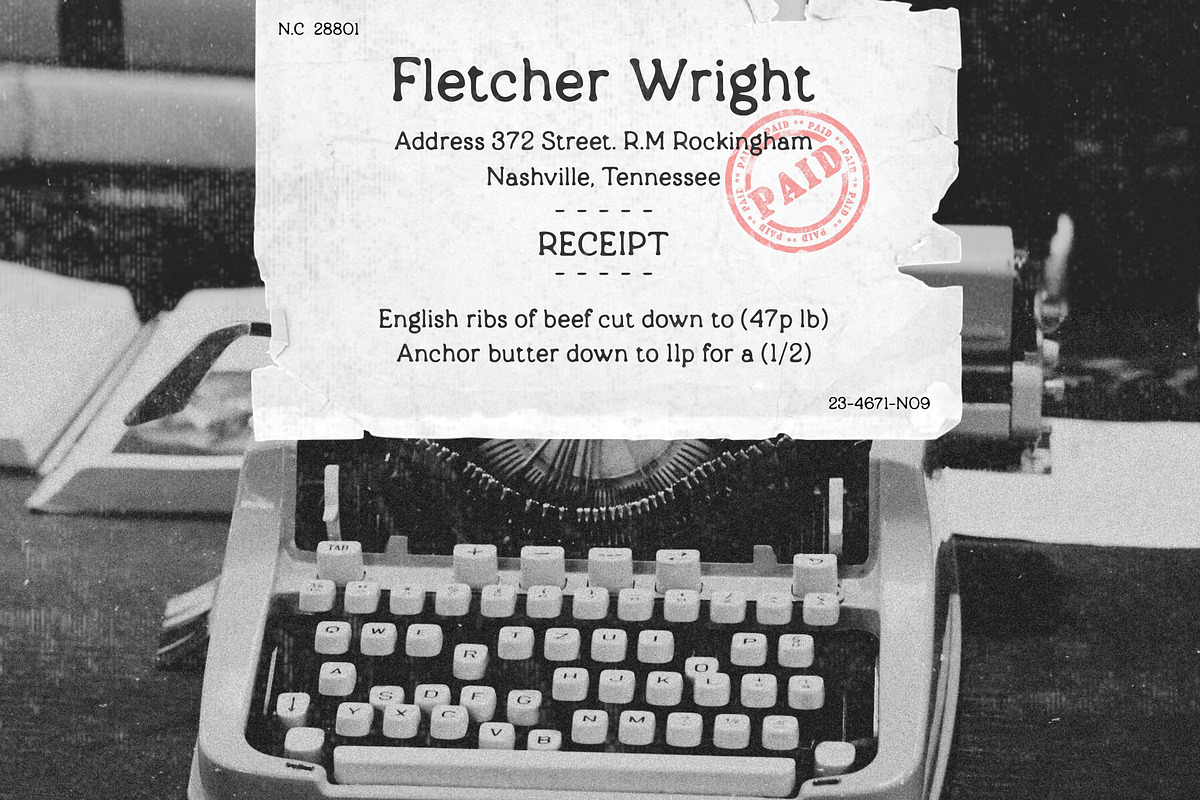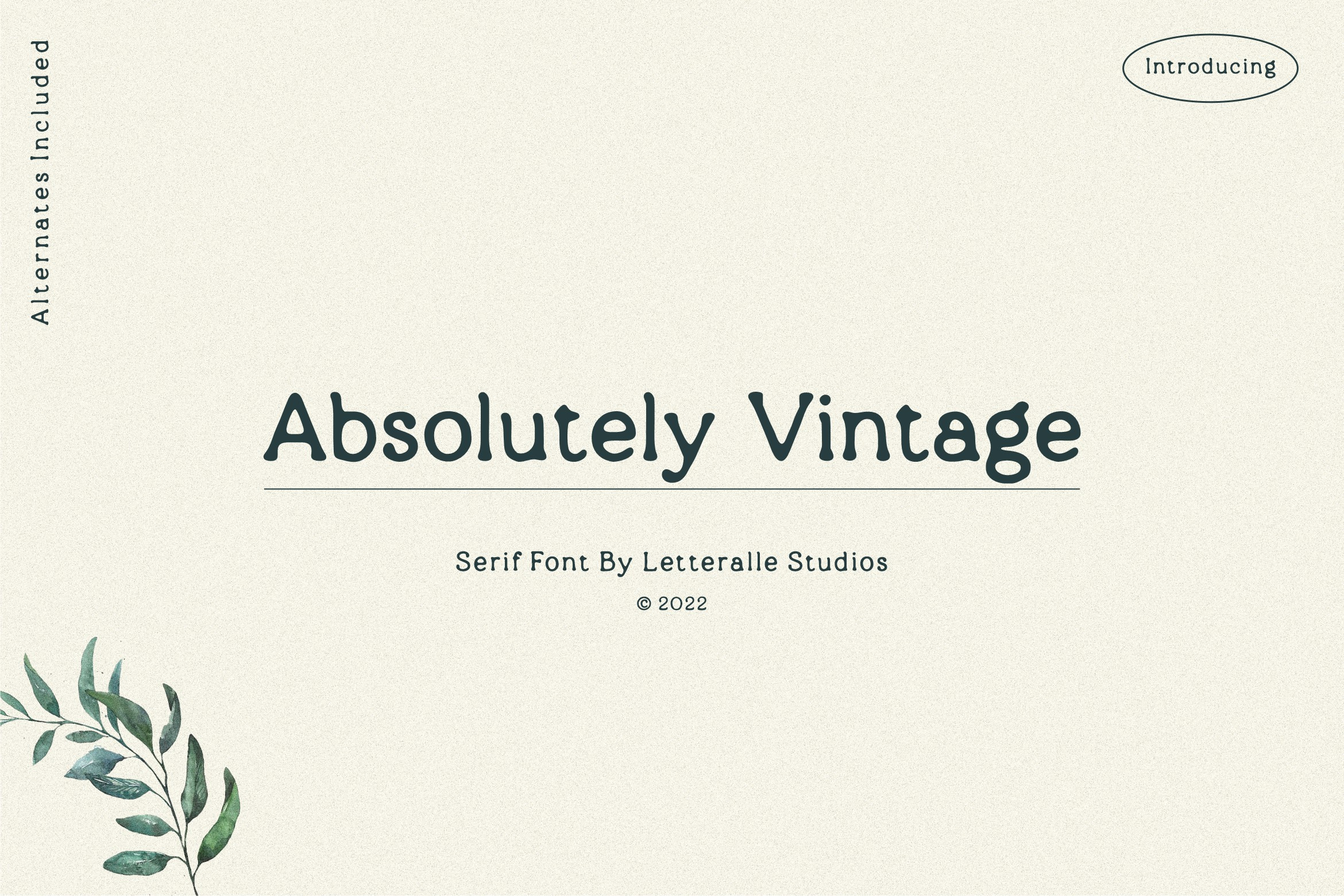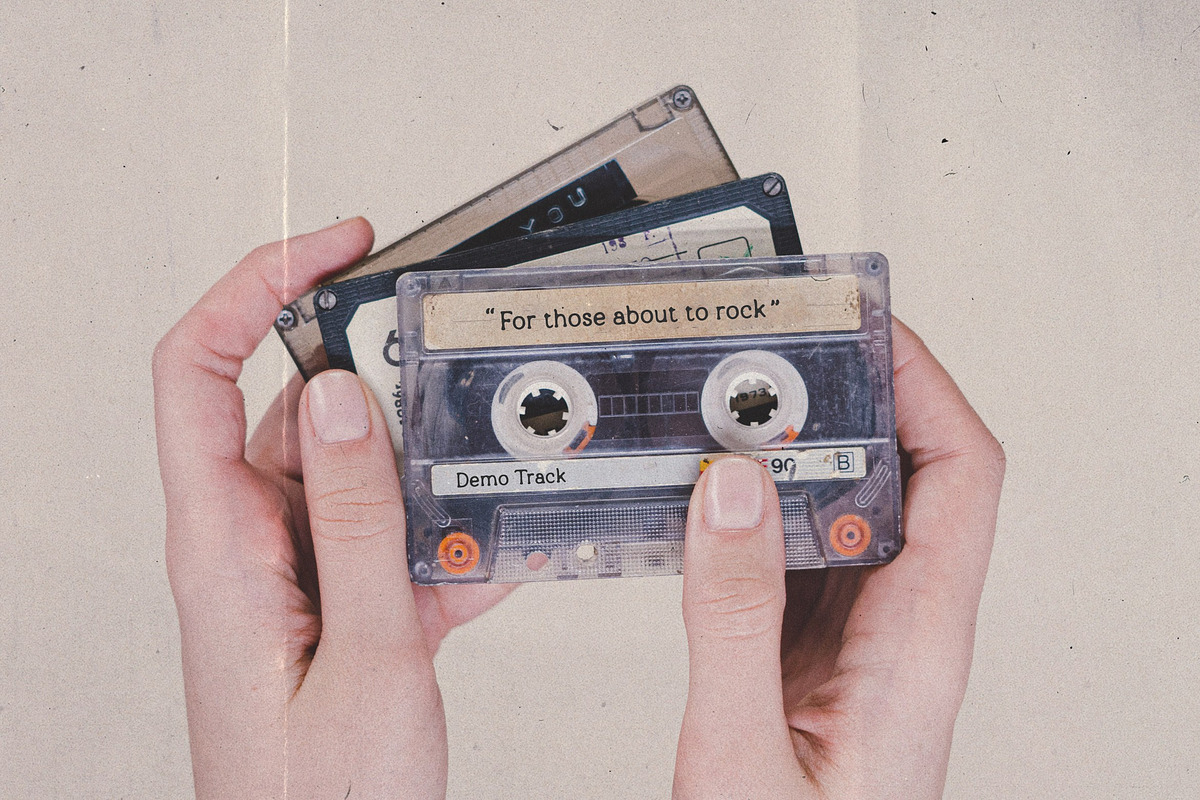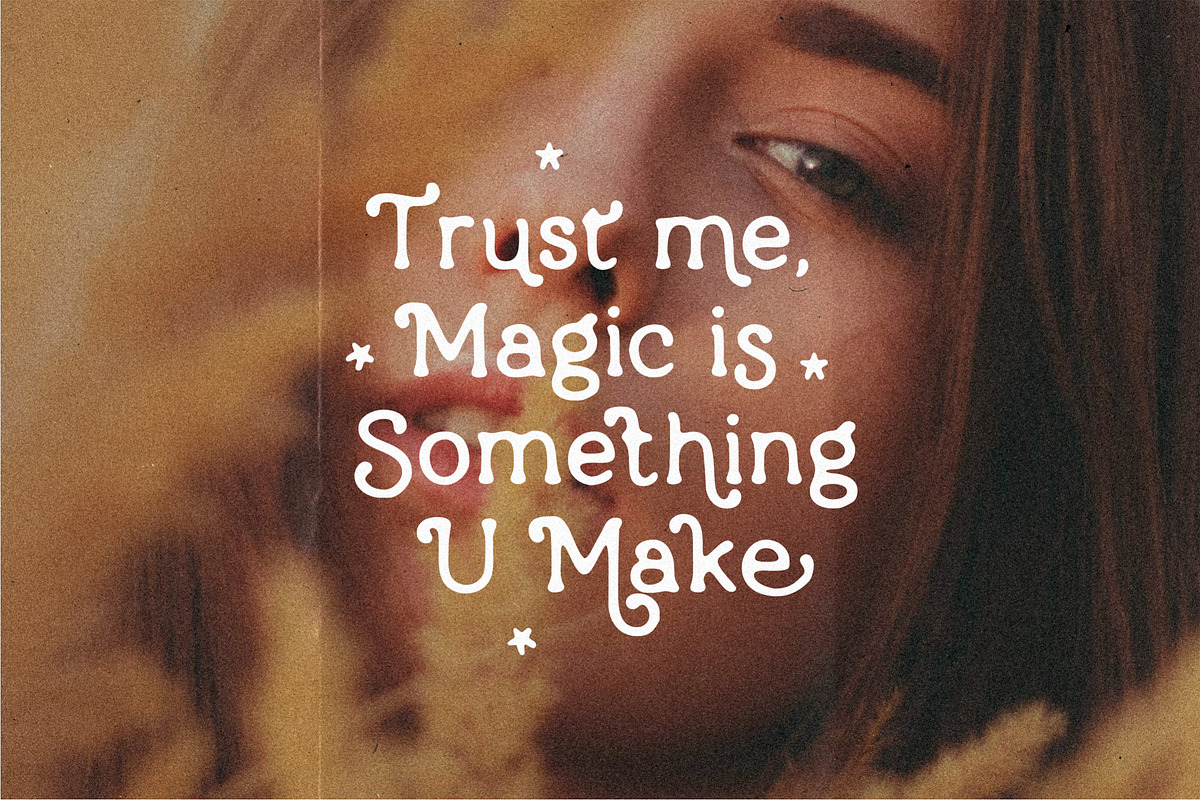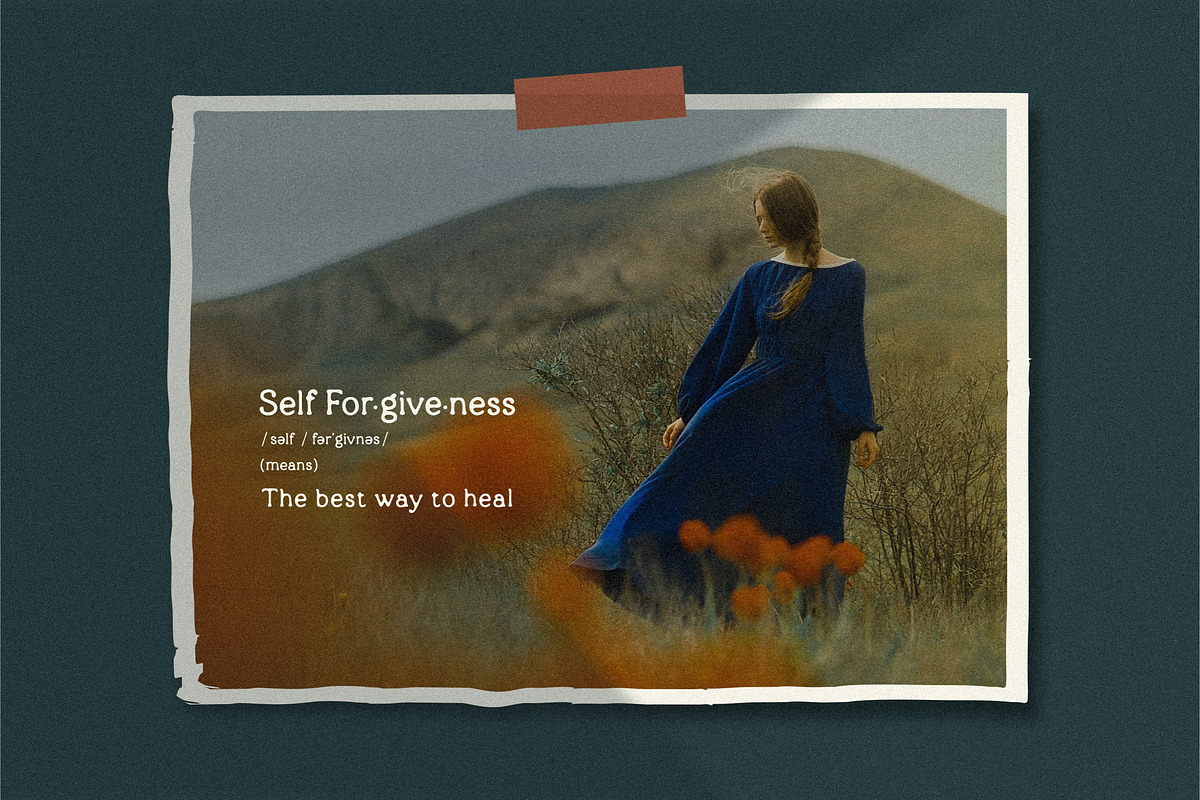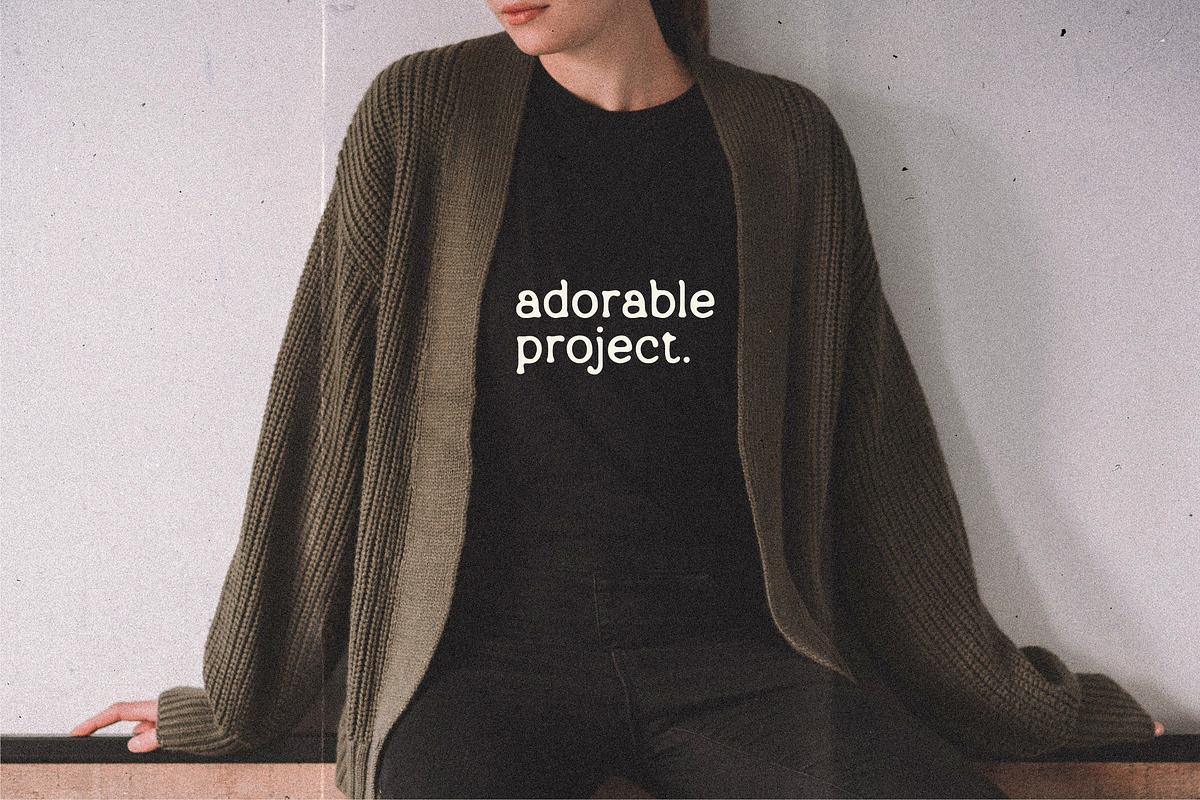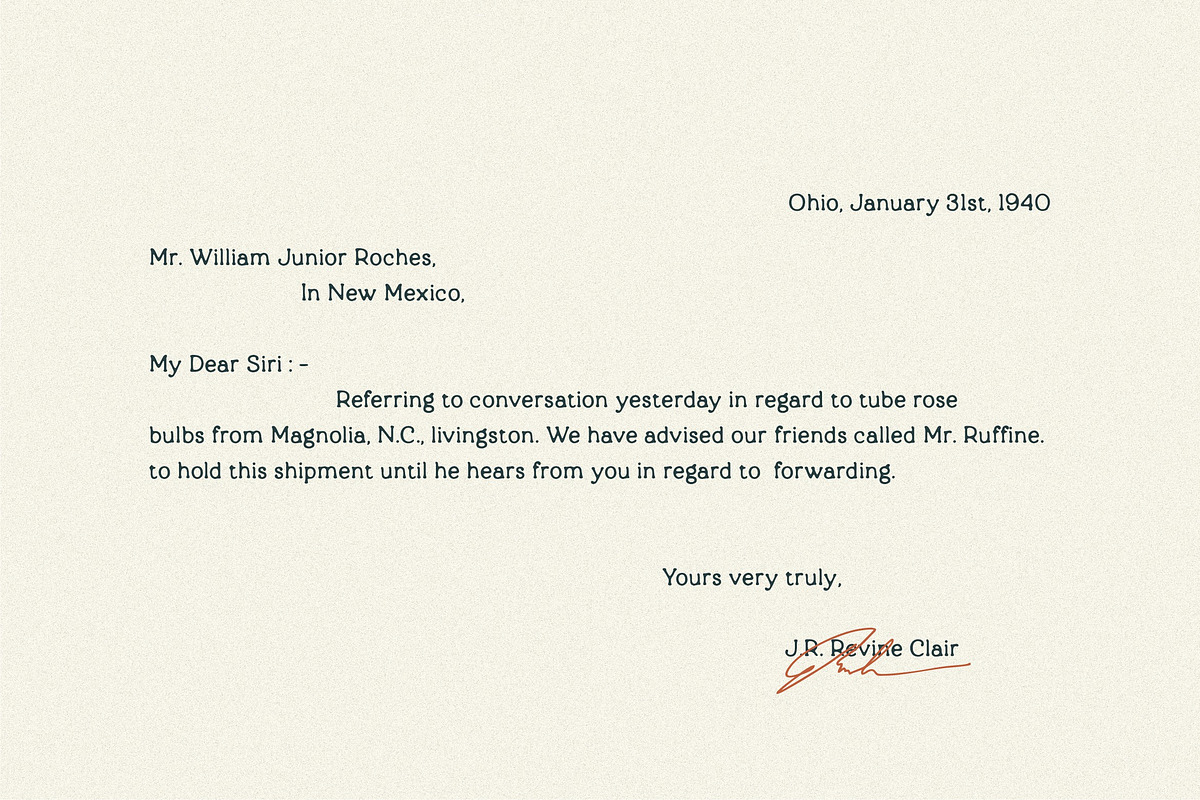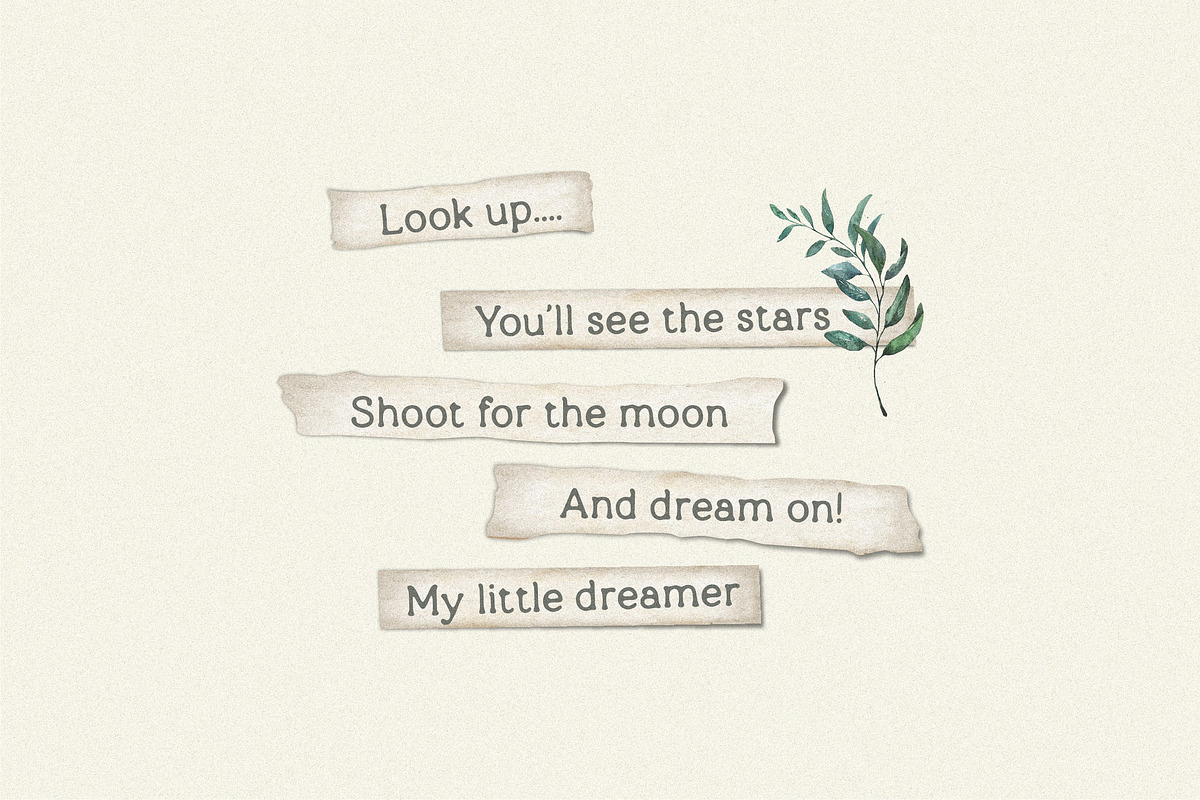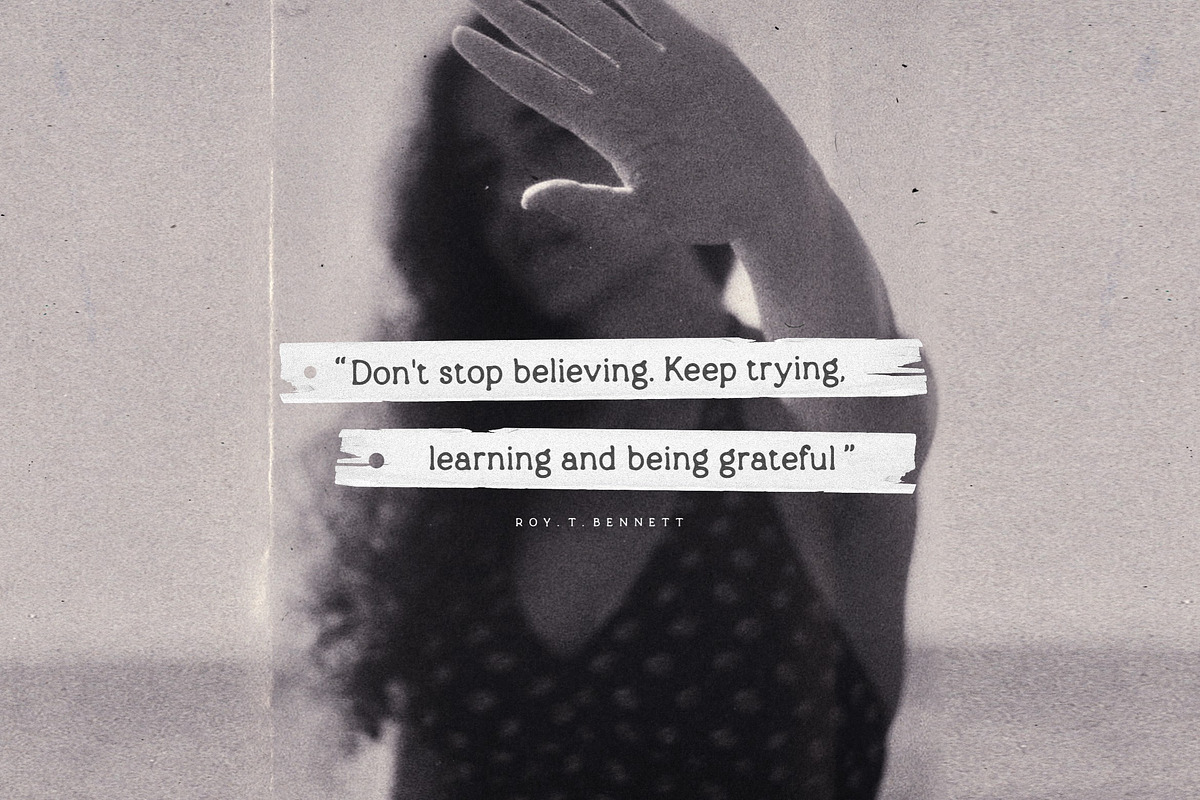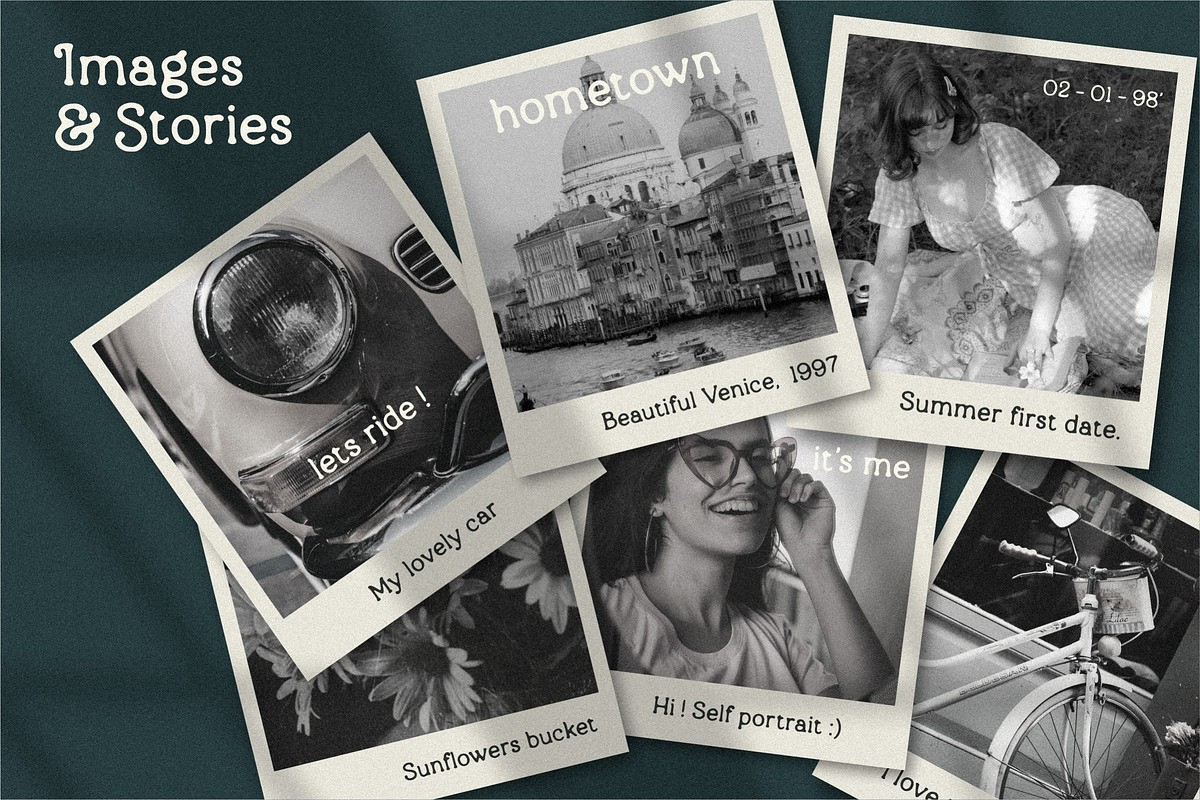
Absolutely Vintage Serif Font
Introducing, Absolutely Vintage Font!
As the name implies, Absolutely Vintage brings a retro and nostalgic feel. This font is made to mimic the typing of a typewriter. With a simple and organic impression, this font is able to create a warm and friendly feel.
Absolutely Vintage also brings alternates to each letter to give it a unique feel for display purposes.
- Full Uppercase & Lowercase Character.
- Alternates & Ligatures.
- Numeral, Punctuation, Multilingual Accents.